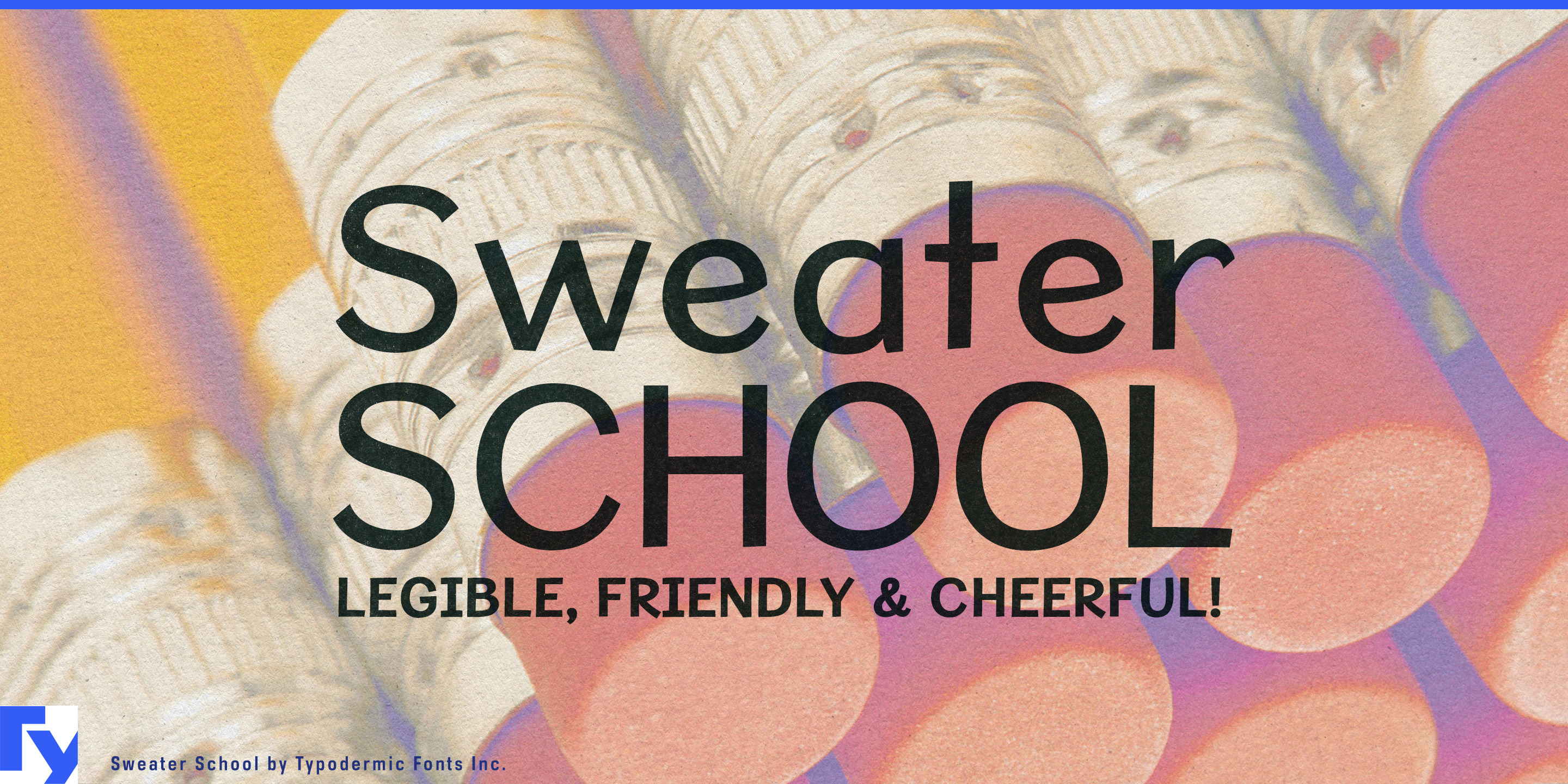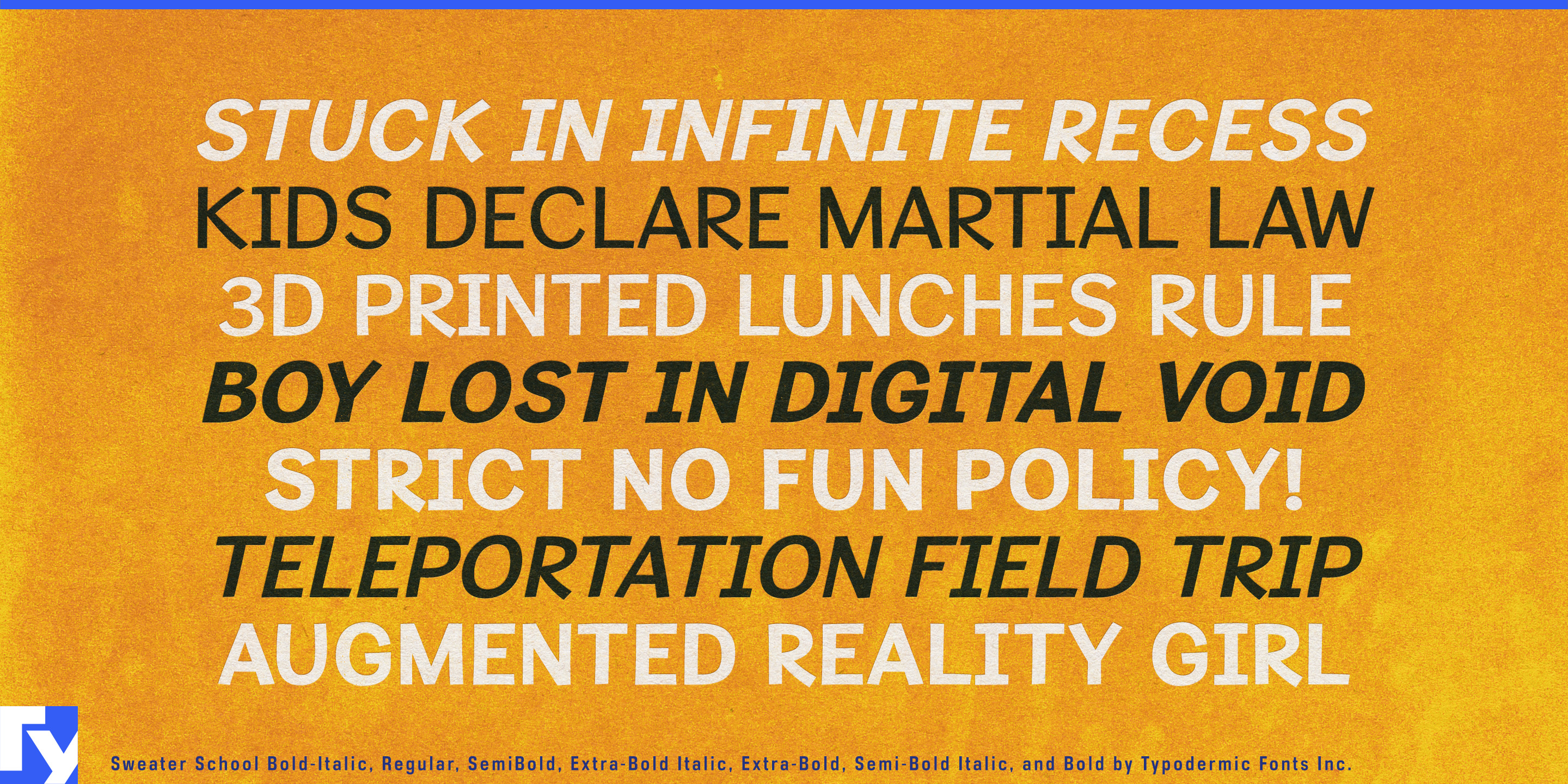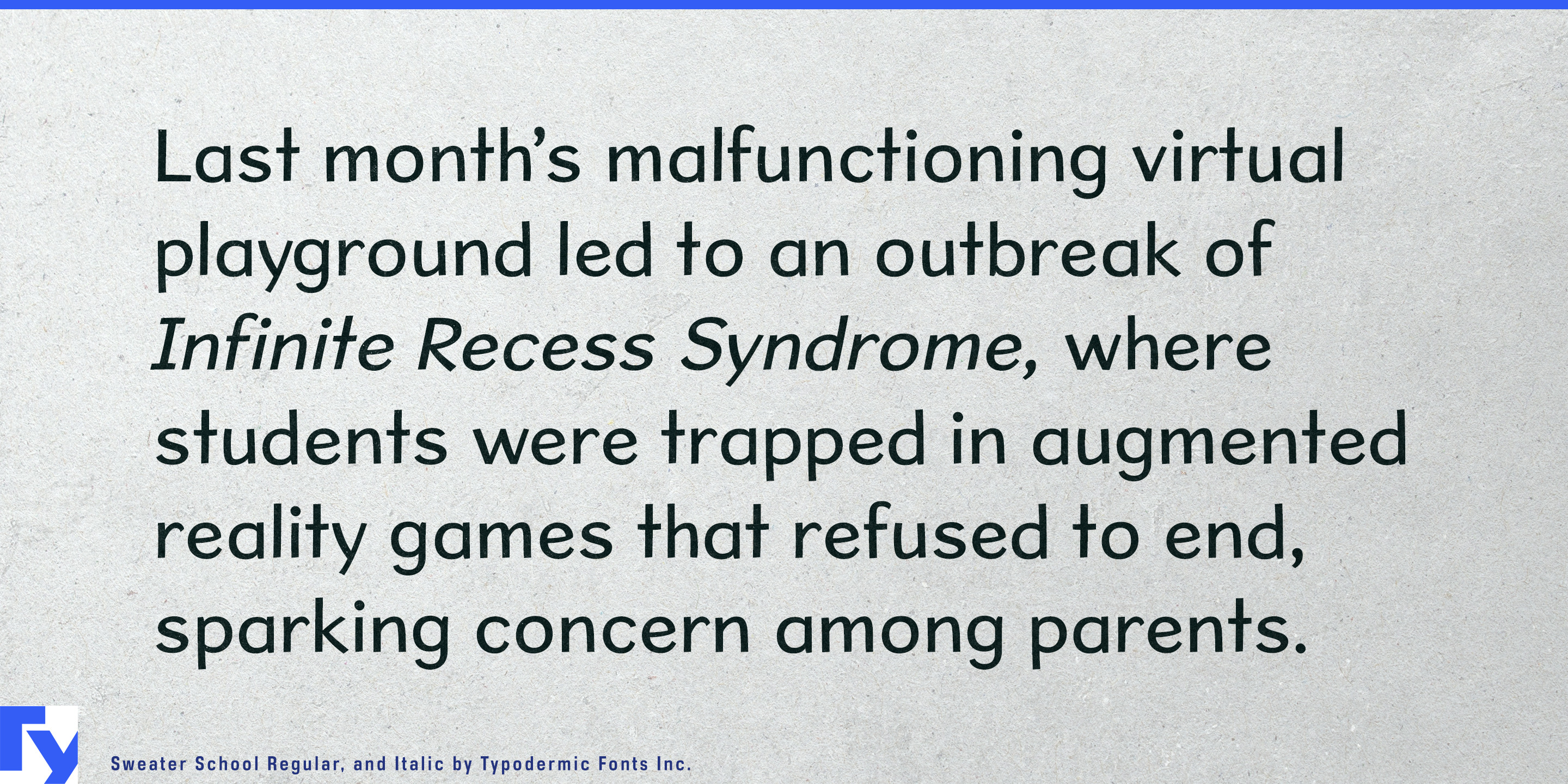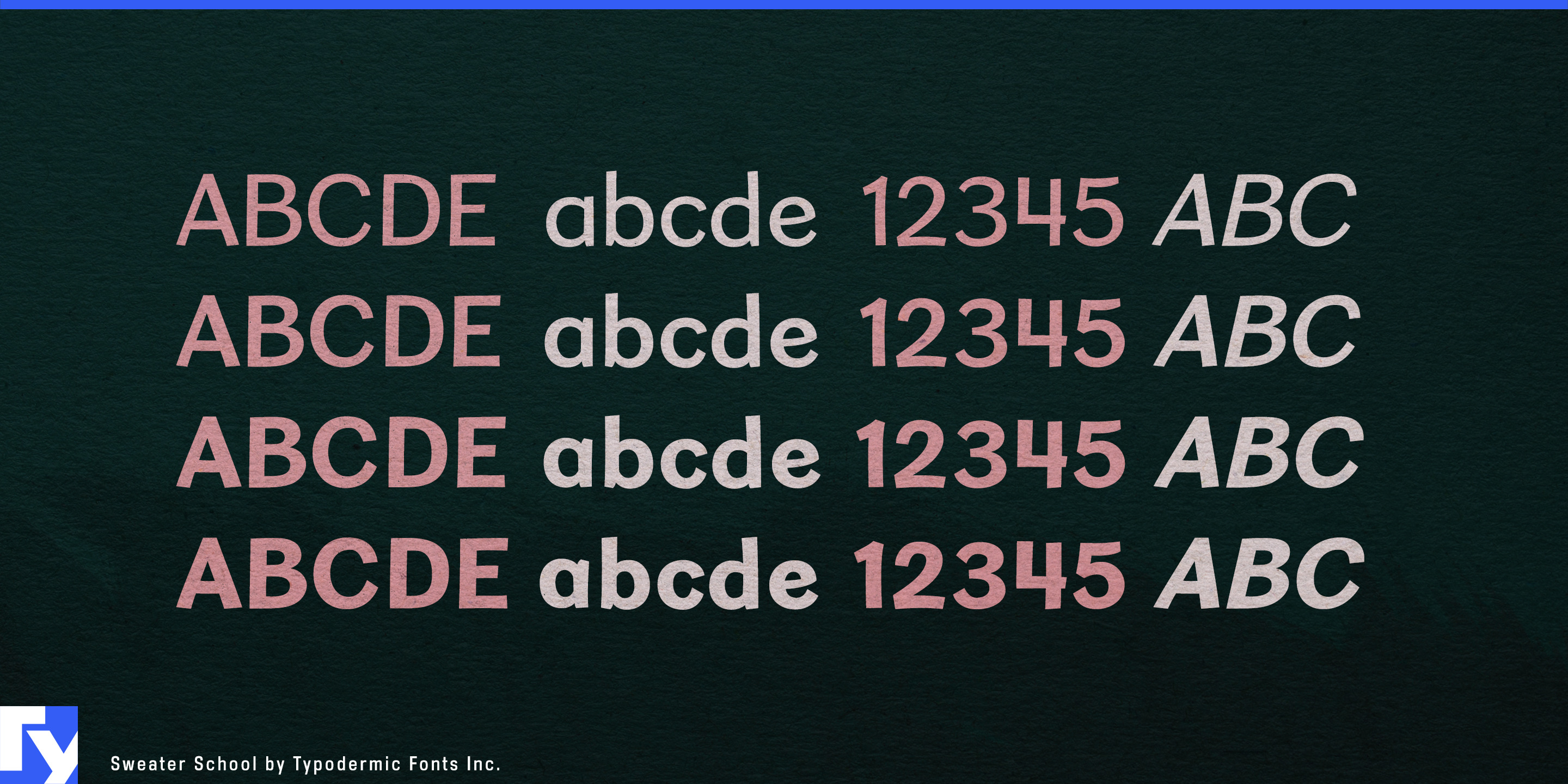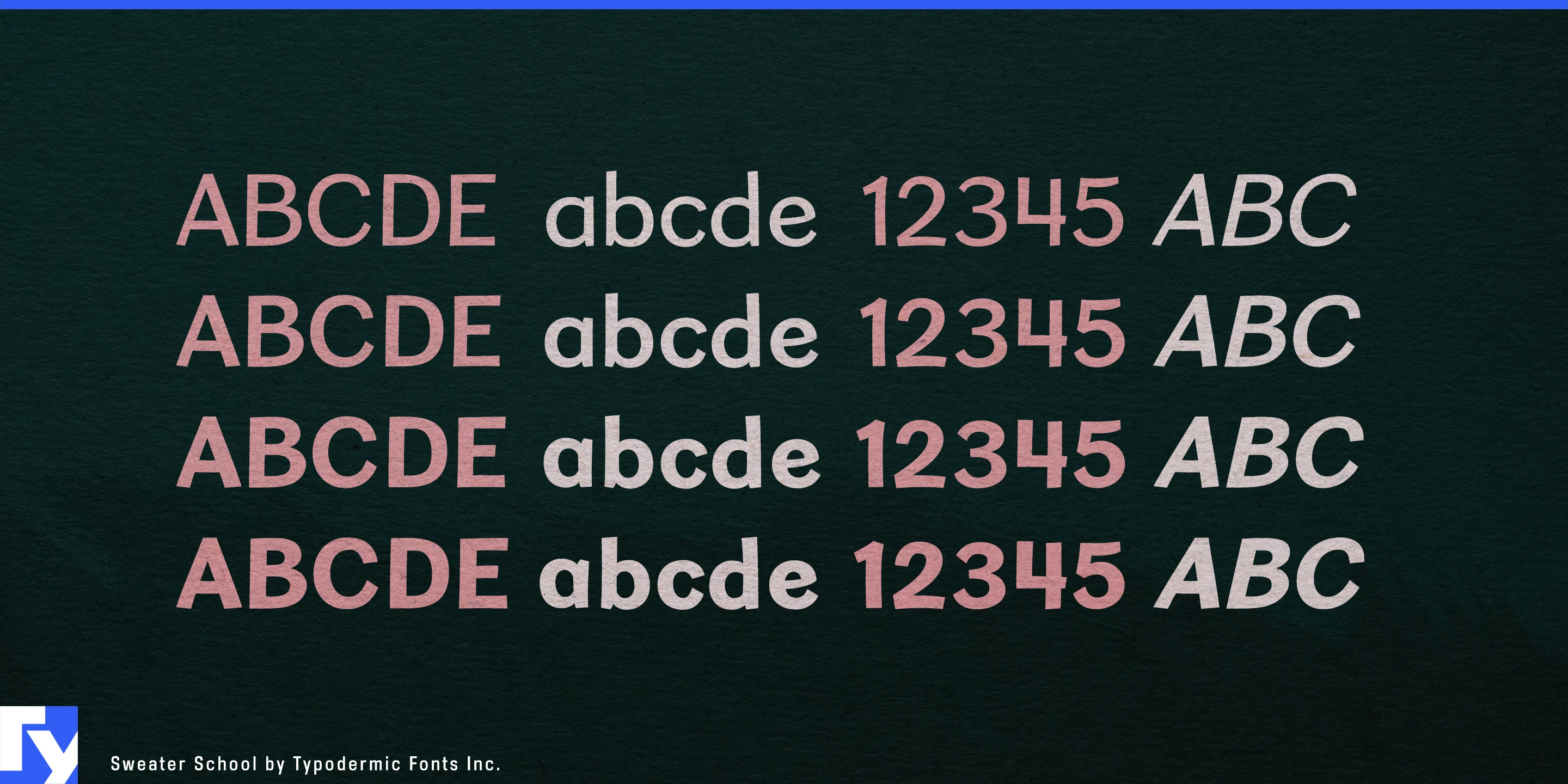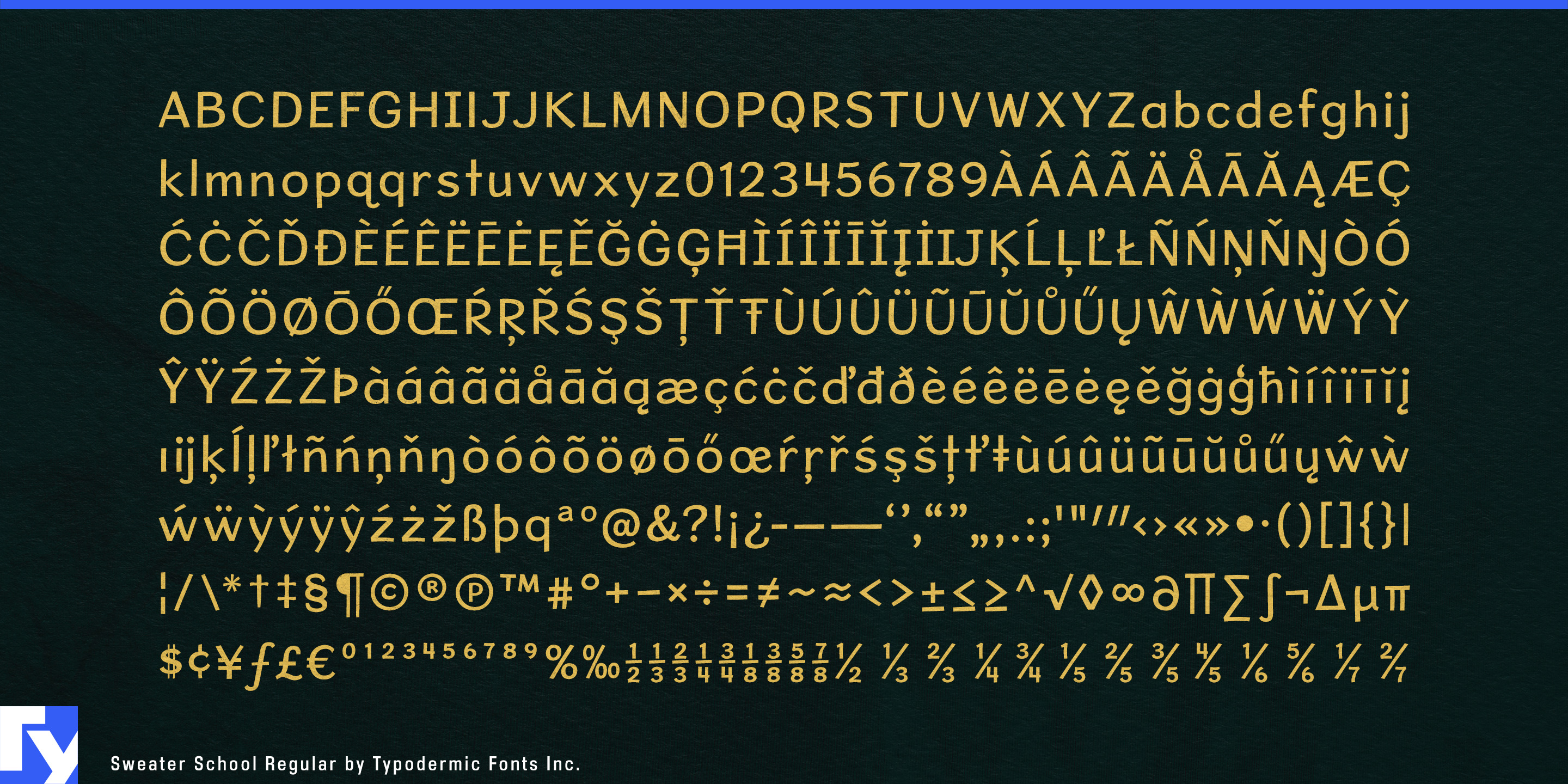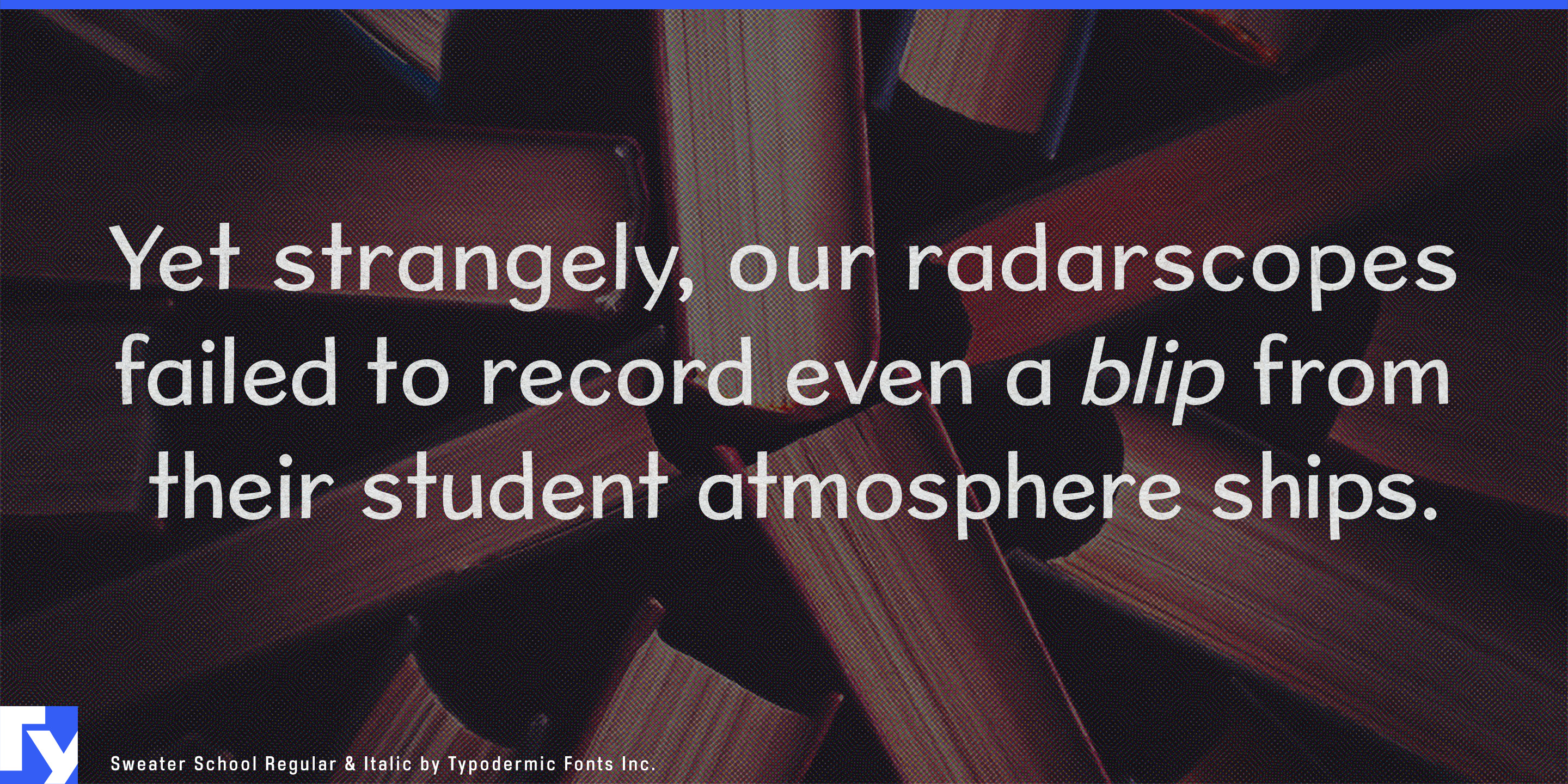
Sweater School
A designer can need typography that unmistakably says “elementary school” without actually needing a primer font. Serious primer faces are built to model letter construction; generic children’s fonts often swing too far toward cartoons, crayons, or playroom graphics. Sweater School sits between those extremes. Its letterforms carry the familiar flavor of elementary-school print, but with enough character and family structure to work as display typography rather than instructional handwriting.
That makes Sweater School especially useful for tutoring centers and supplemental learning programs. Elementary math and reading centers, children’s English schools, homework academies, learning franchises, homeschool curriculum companies, and summer enrichment programs can use it across course names, reading levels, subject headings, student folders, achievement certificates, enrollment campaigns, parent brochures, and interior graphics.
Educational publishing is another natural fit, particularly where the job is to frame the lesson rather than supply the letter model itself. Workbook covers, lesson openers, activity headings, vocabulary boxes, puzzle sections, teacher-resource covers, classroom poster sets, phonics-card packaging, math-practice series, and supplemental reading materials can use Sweater School to establish an elementary-school voice while a more neutral face handles sustained reading.
School-supply and classroom-product packaging extends the same idea into physical goods. Flashcard systems, math manipulatives, reusable learning boards, educational stickers, classroom organizers, subject notebooks, homework planners, reward-chart kits, pencil and marker sets, desk-name products, and boxed teacher resources all benefit from lettering that looks immediately at home on a teacher’s desk.
Elementary edtech can use the family in a similarly focused way. Homework platforms, digital worksheet libraries, phonics programs, elementary math subscriptions, children’s language-learning services, classroom quiz systems, and teacher-resource platforms can use Sweater School for lesson titles, subject tiles, course thumbnails, achievement graphics, printable materials, and promotional campaigns.
The school association also suits elementary open houses, scholastic book fairs, reading-week campaigns, science fairs, after-school clubs, library children’s programs, and summer-learning initiatives. Sweater School is primer-print flavored rather than a primer font; it signals school, classroom, lessons, and learning while remaining expressive enough for the display layer of an educational brand, workbook series, tutoring program, classroom product, or school campaign.